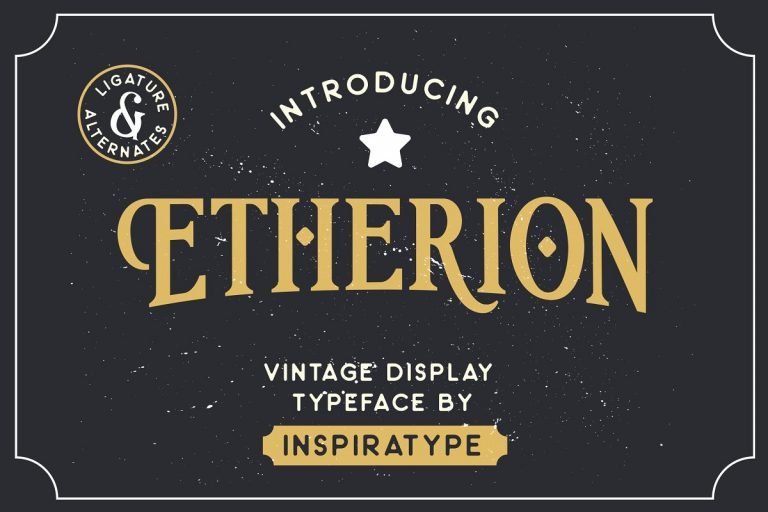
Etherion Vintage Display Font
This is a vintage display typeface. Made with medium contrast of the strokes that allow you to create more than headline. The spacing adjusted a bit tight that possible to fill empty space on your modern or typographic design! Introducing Etherion Font. Etherion Vintage Display Font is a font display is made by hand, inspired by classic posters. Comes with uppercase, lowercase, numerals, punctuations and so many variations on each characters include opentype alternates, common ligatures and also additional swash to let you customise your designs. Perfect to use for Logotype, Letterhead, Poster, Apparel Design, Label and etc.